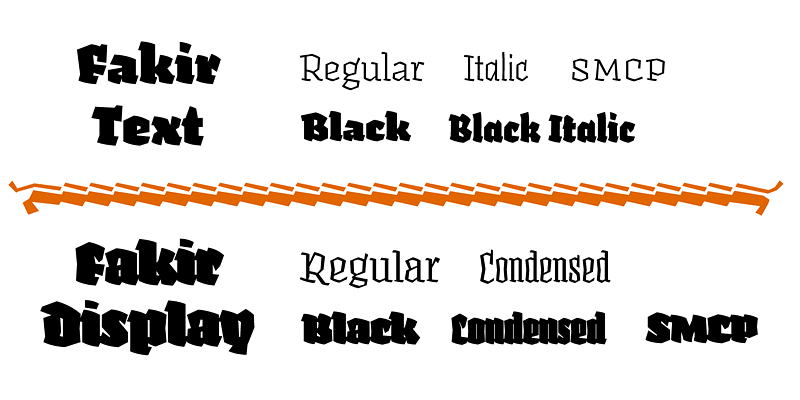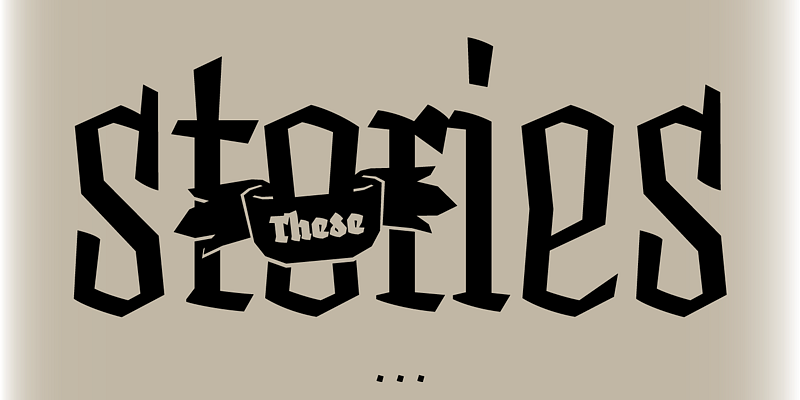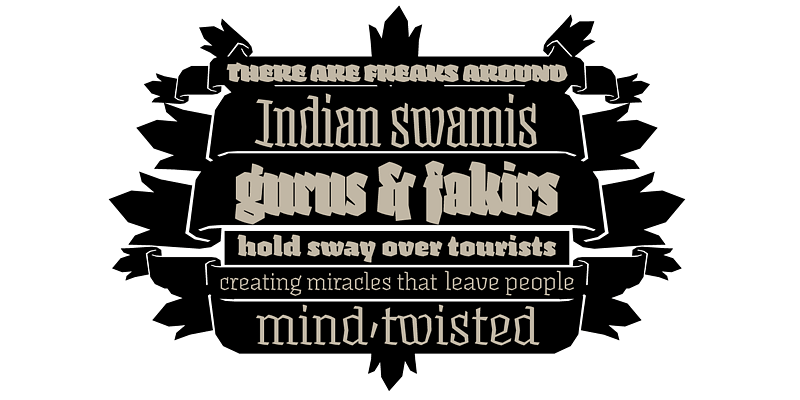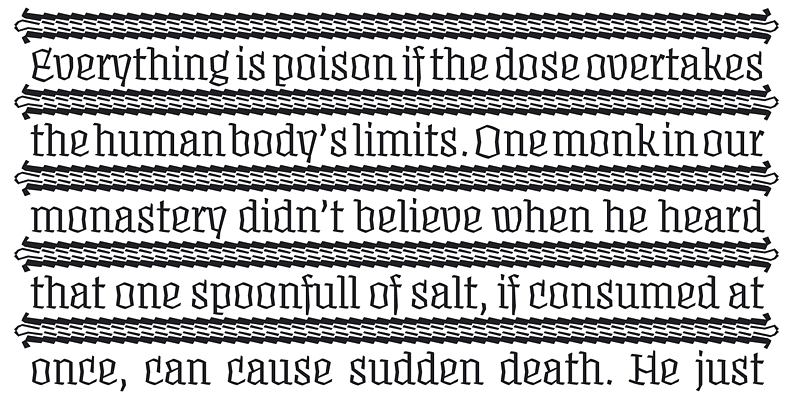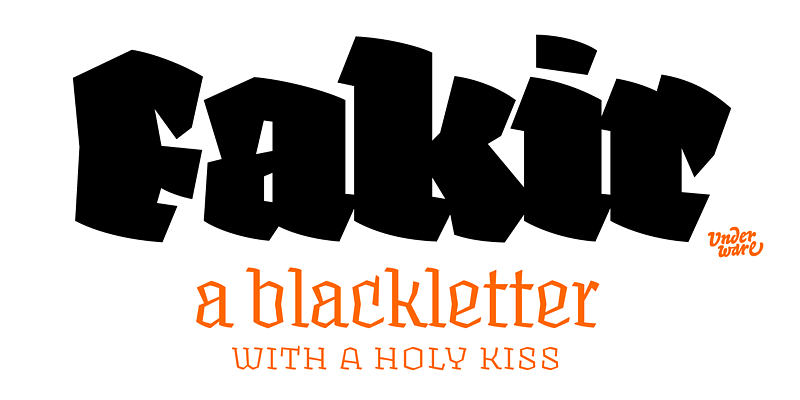
Fakir is a contemporary blackletter, with a unique aspect. Next to its 5 display fonts, it comes in 5 text fonts too for long pieces of text, suitable for contemporary readers.